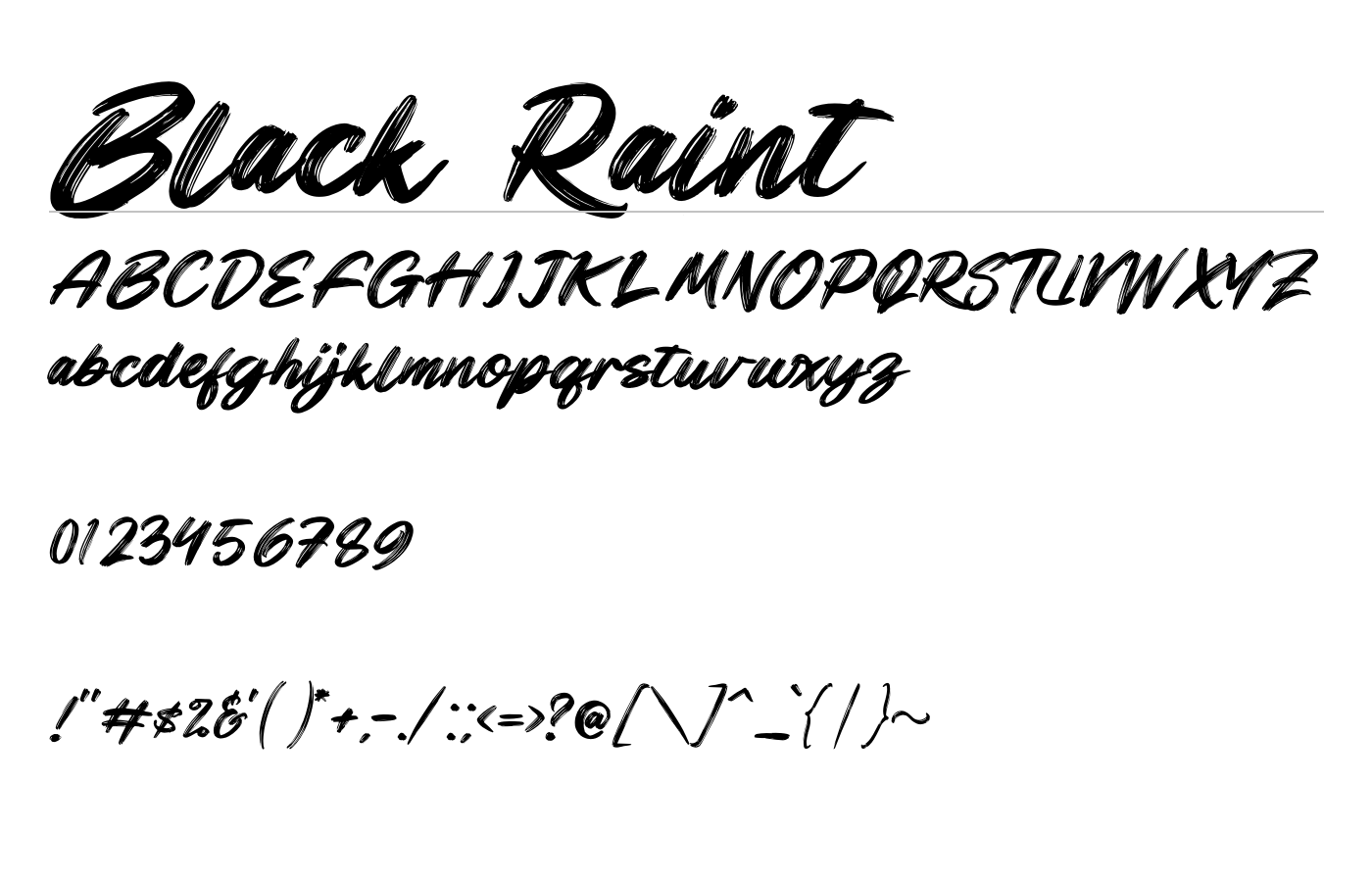
Black Raint is a bold, brush script font with a dynamic and expressive style, featuring thick and textured strokes that evoke a hand-painted feel. Its lively, slightly slanted letterforms give it an energetic and artistic personality, making it ideal for creative branding, posters, and eye-catching headlines where a personal, handcrafted touch is desired. This font works well in designs that aim to convey boldness and creativity with a casual yet impactful vibe.
Black Raint Font
About Black Raint Font
| Font family | Black Raint Font |
| Designer | Nanang Jamaludin |